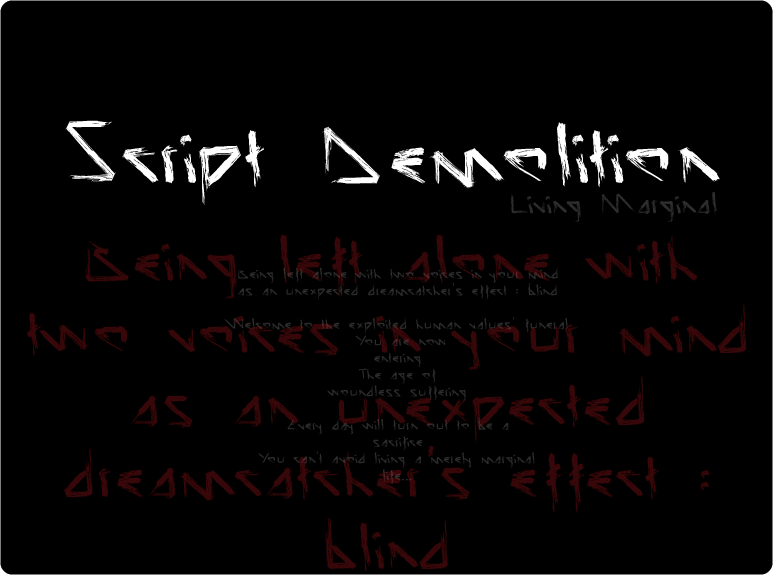
Script Demolition is my firs own designed font from 2005. This was the name of my metal music I was composing that time…I found these files and decided to update this style cause I still love it. Commercial use is donationware as It is already an identity and still represent MY music, and the brand itself „Script Demolition”. Feel free to drop me a line in case of questions or feedback. That would also help me in my design work, and would be greatly appreciated! |